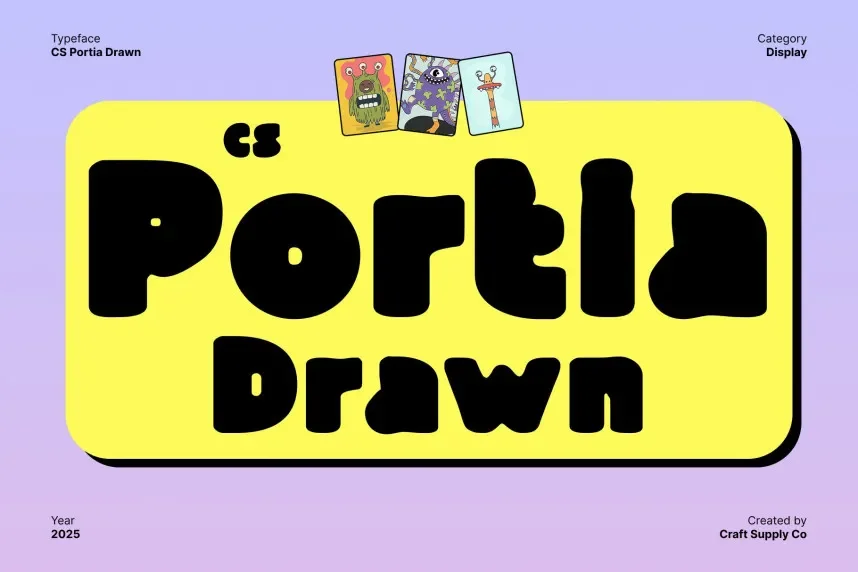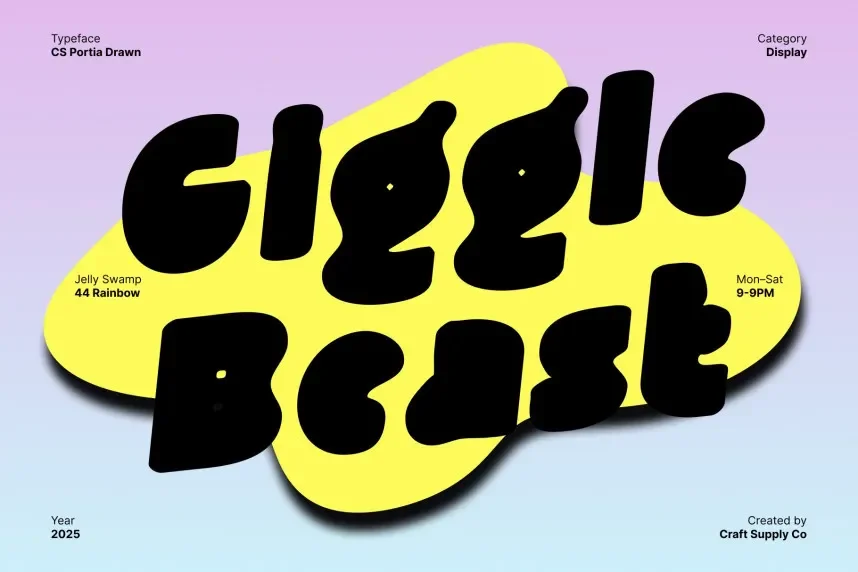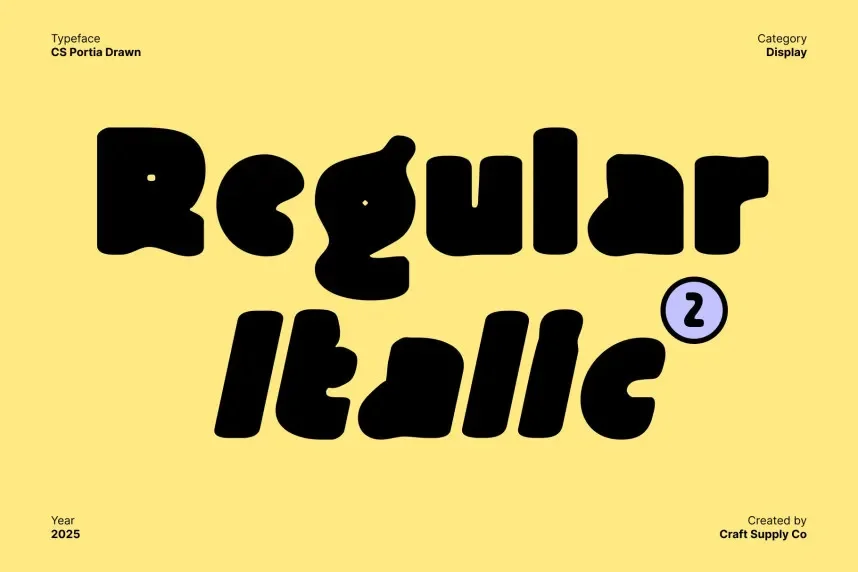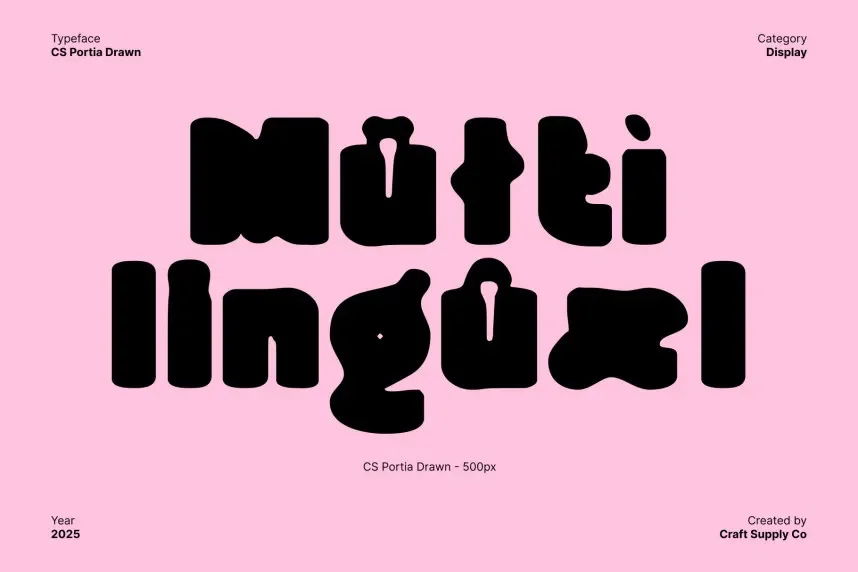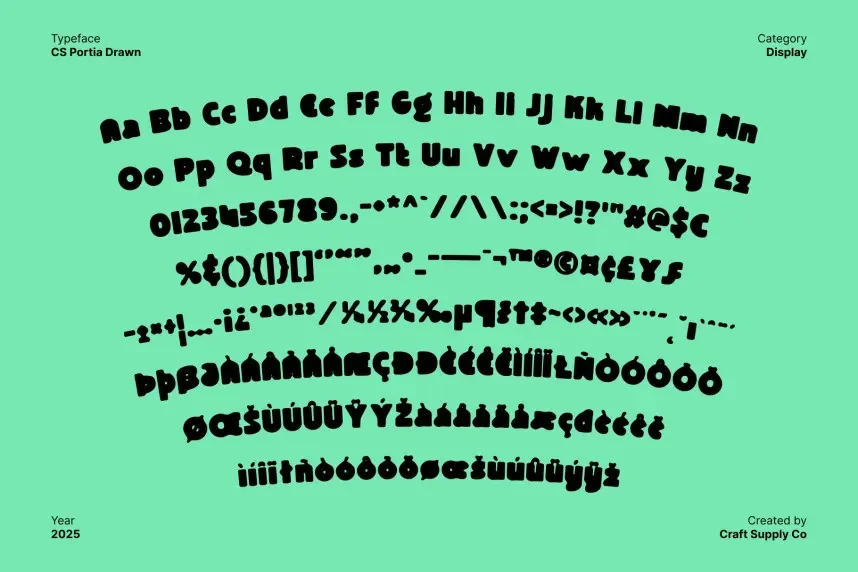
CS Portia Drawn Font is a decorative, hand-drawn typeface featuring elegant, curved letterforms and organic stroke variations. Its artistic style makes it ideal for creative projects, such as invitation designs, posters, and branding materials.